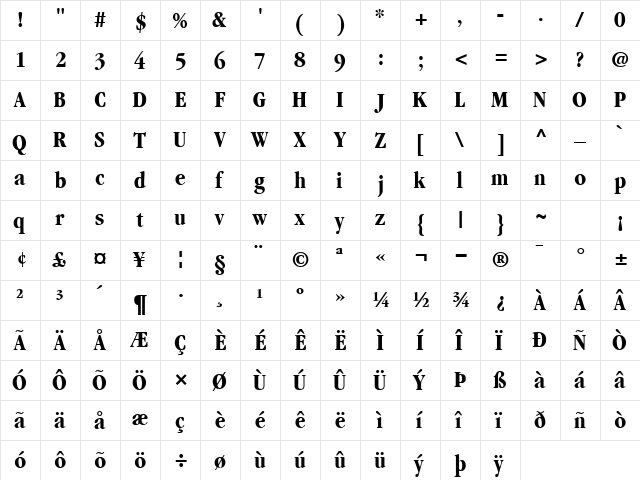
GaramondBlackCondSSK Bold Font Preview
Design Context for GaramondBlackCondSSK Typeface
GaramondBlackCondSSK offers clean, dependable letterforms without strong stylistic allegiance, making it a practical choice for designers who need flexibility. Its bold stroke weight gives it real presence on the page. The condensed width makes it efficient for tight spaces without sacrificing legibility.